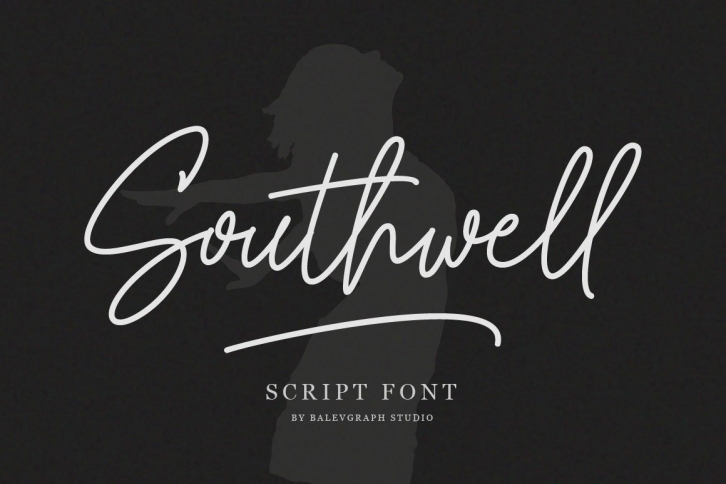
Southwell Script is a great font that was designed by Balevgraph Studio. Imagine the amount of combinations you can create using this font! The archive is 9.19 MB and it was released on August 16, 2021. Southwell Script looks beautiful on wedding invitations, greeting cards, logos, posters, labels, t-shirt designs, logos, business cards and is perfect for use in ink or watercolor works, fashion, magazines, packaging and food menus, children's books and more!